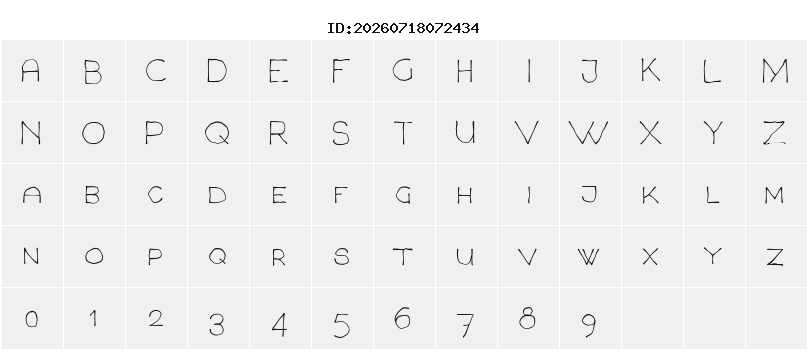
Chavenir Versal Preview
• Font Name: Chavenir Versal
• Font Style: Versal
• Designer: Måns Grebäck
• Manufacturer: Måns Grebäck
About Chavenir Versal.ttf
Chavenir Versal.ttf is a modern, elegant sans-serif font designed for ultimate readability and visual harmony. Perfect for branding, headlines, web design, and print materials.